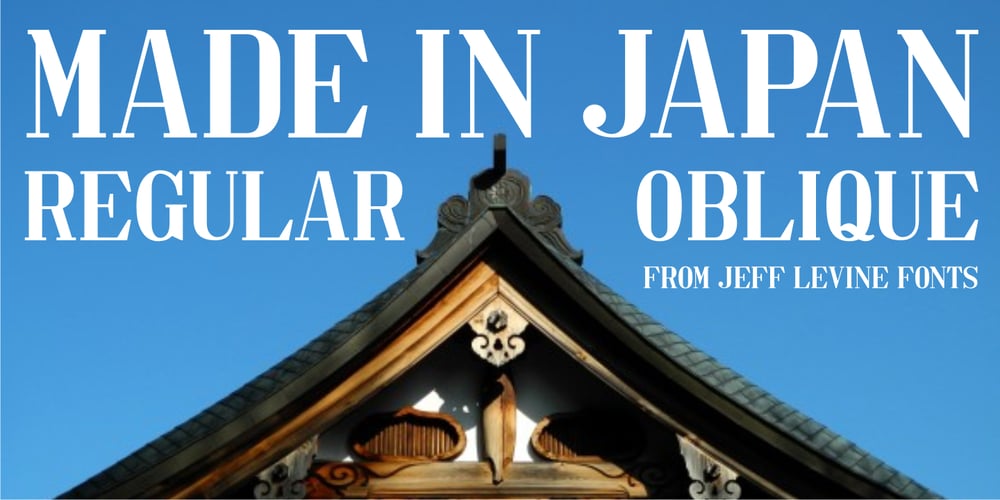
Made In Japan JNL Font Family was designed by Jeff Levine and published by Jeff Levine. Made In Japan JNL contains 2 styles and family package options. A set of rubber stamp letters, figures and punctuation used for marking electrical or communications equipment [and made in Japan] is the basis for this serif typeface. Varying widths and some letters in more of a block style than rounded are typical of Japanese packaging text from the 1950s and 1960s. Available in regular and oblique styles.